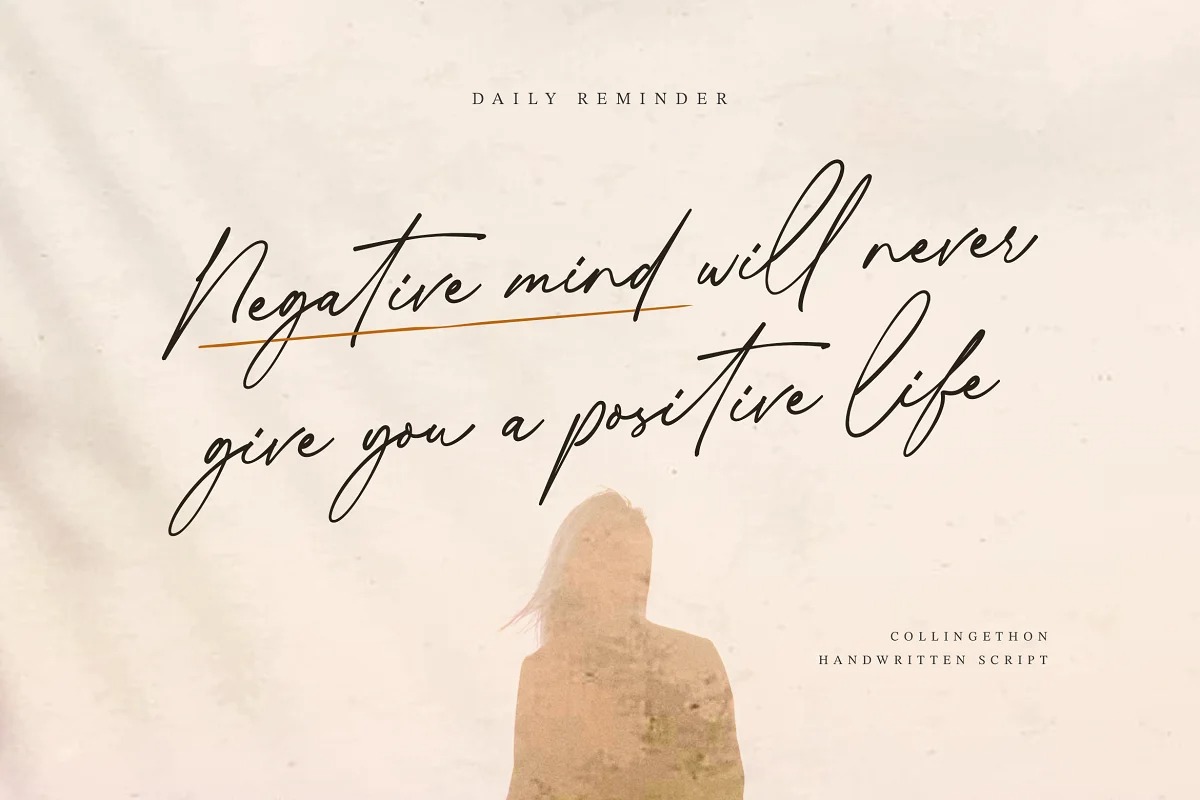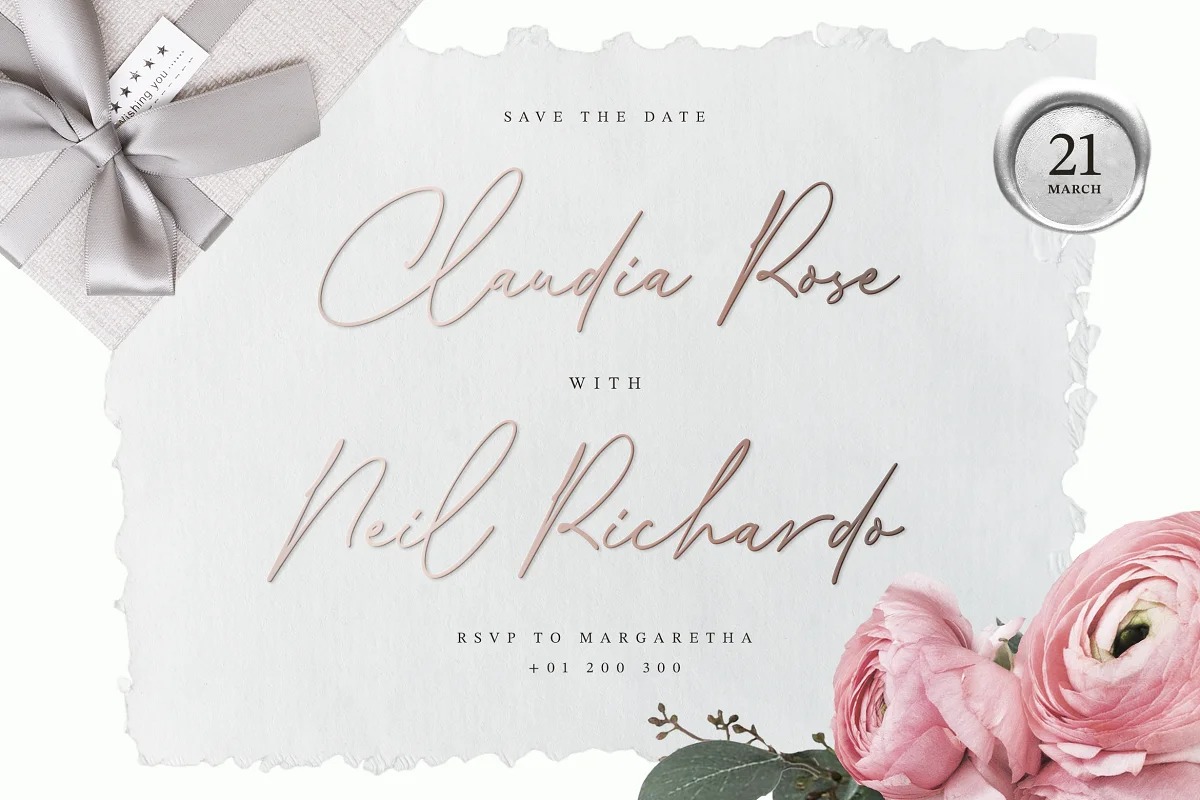
Collingethon Handwritten Font
It’s a stunning signature typeface with a cool twist. Perfect for creating handwritten-style logos, wedding stationery, photographer watermarks logos, modern websites, and more. For those of you who are needing a touch of elegant, chic and modernity for your designs, this font was created for you!